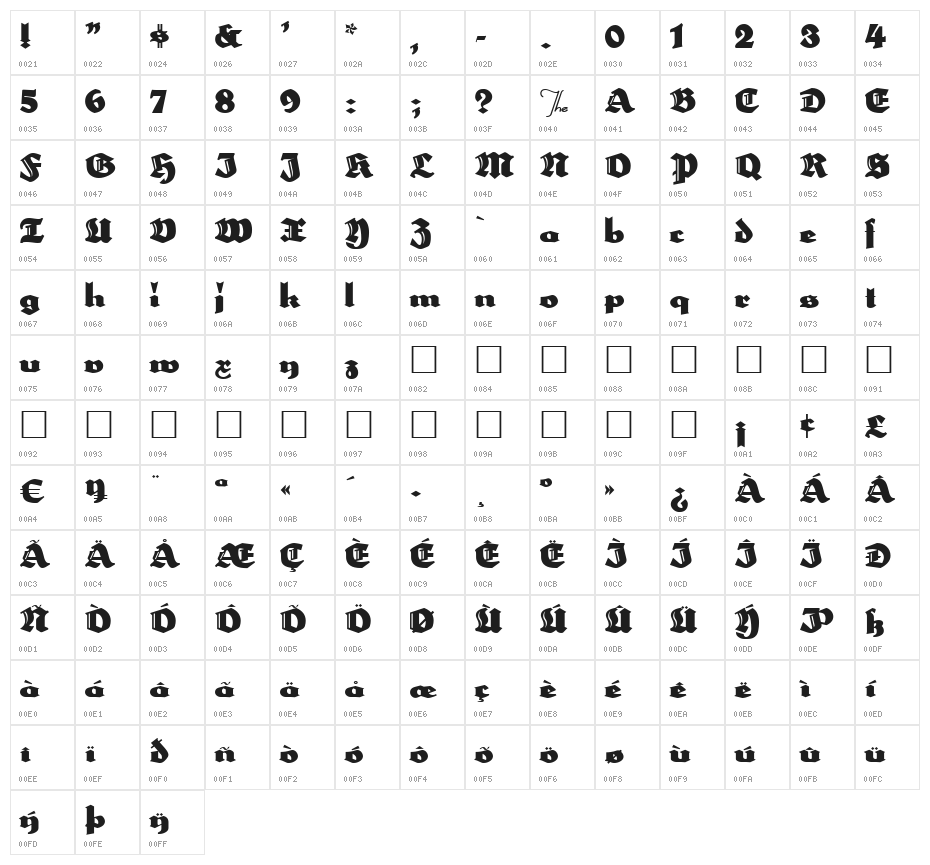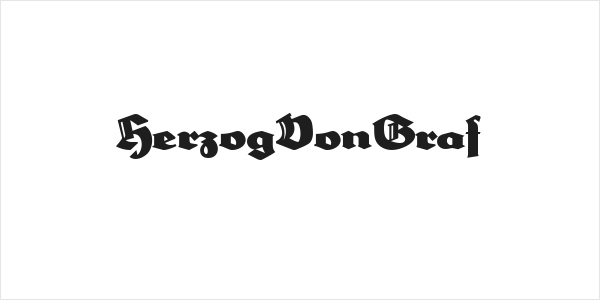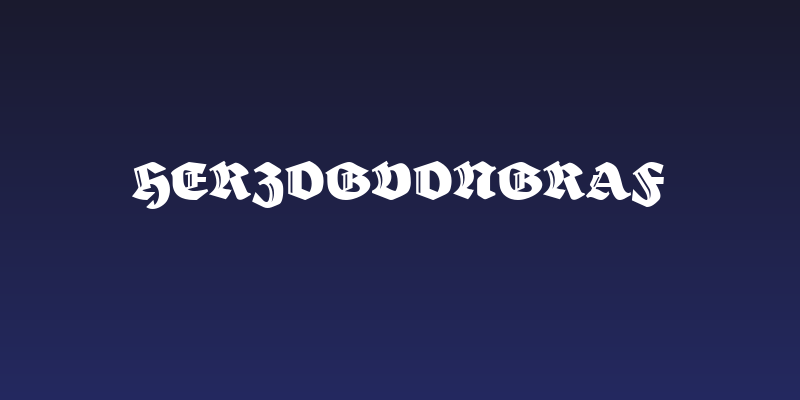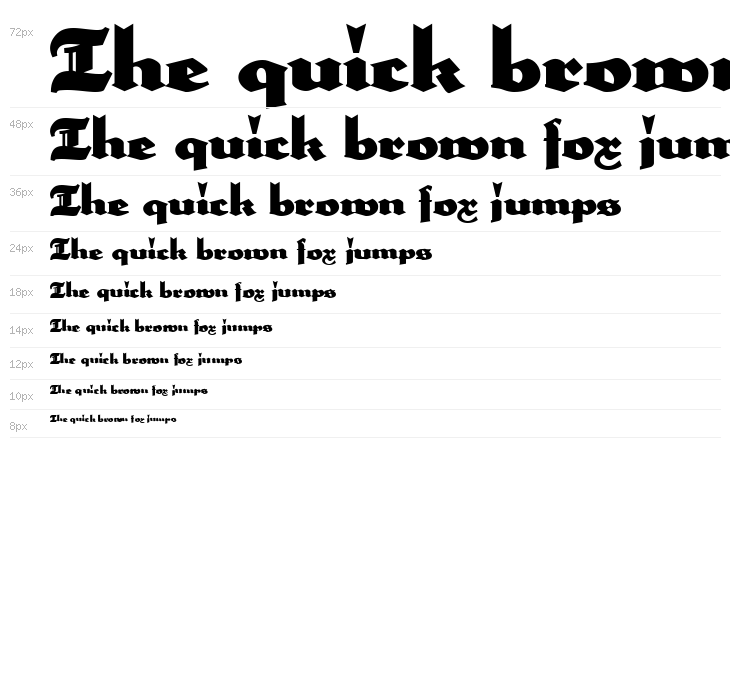
HerzogVonGraf Font
HerzogVonGraf Description
This font embodies a traditional blackletter style, characterized by its bold, angular strokes and intricate detailing. The uppercase letters are ornate, with sharp edges and a medieval flair, while the lowercase letters maintain a consistent style with slightly more rounded forms. The numerals are robust and follow the same bold, gothic aesthetic. Special characters are designed to complement the overall theme, adding to the font's decorative appeal. This font is ideal for projects that require a historical or dramatic touch, such as event posters, book covers, or branding that seeks to convey a sense of tradition and strength.
| Proposed Projects | Ideal for event posters, book covers, branding, and any project needing a historical or dramatic touch. |